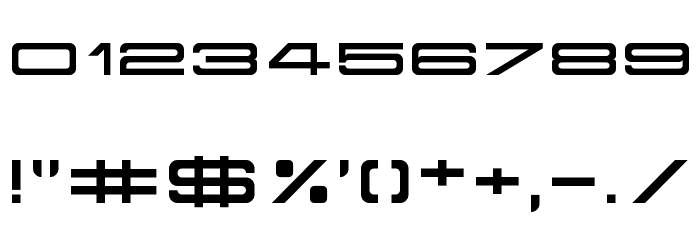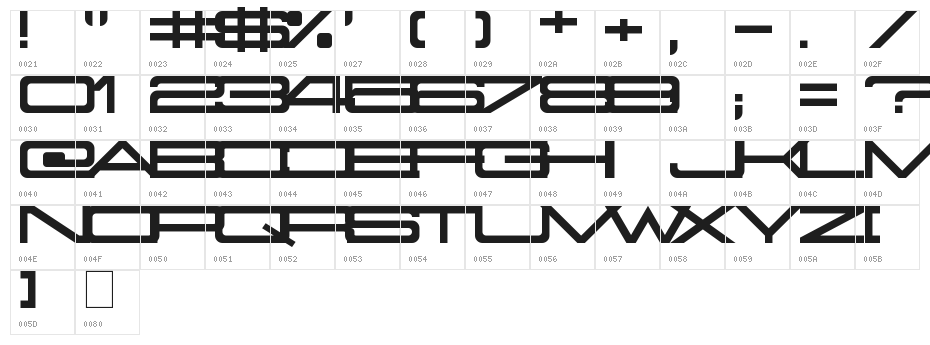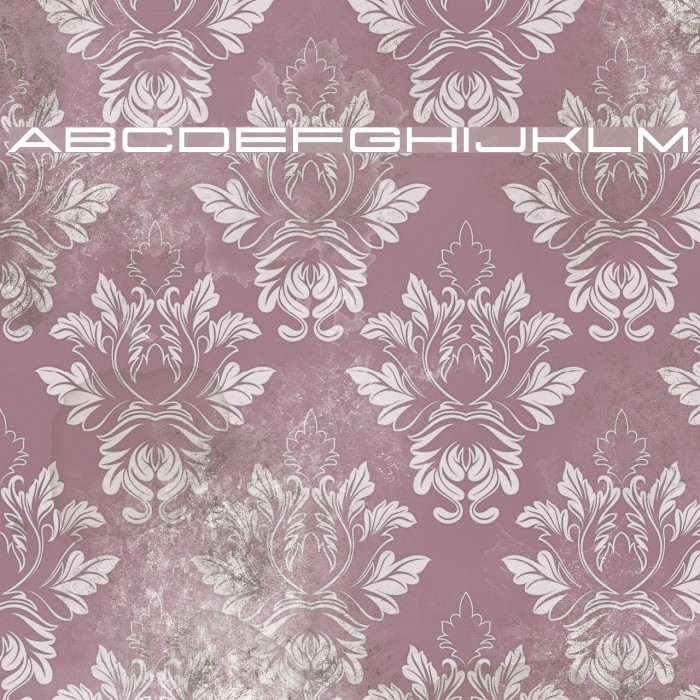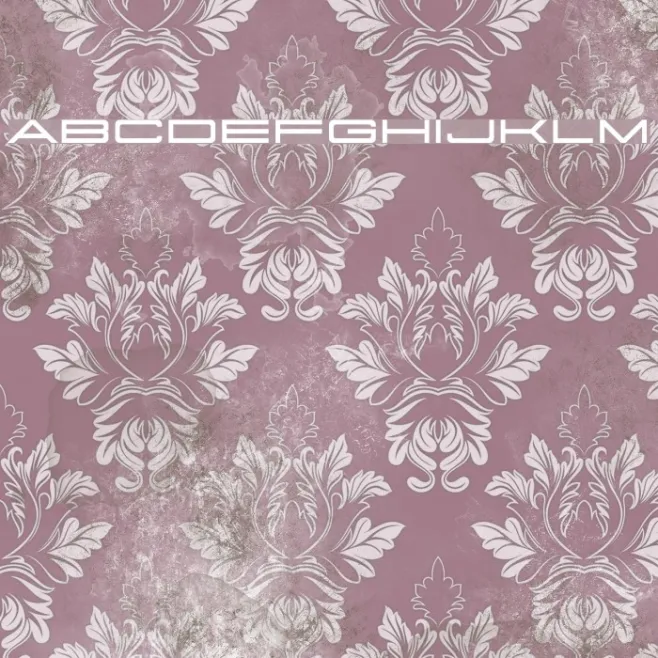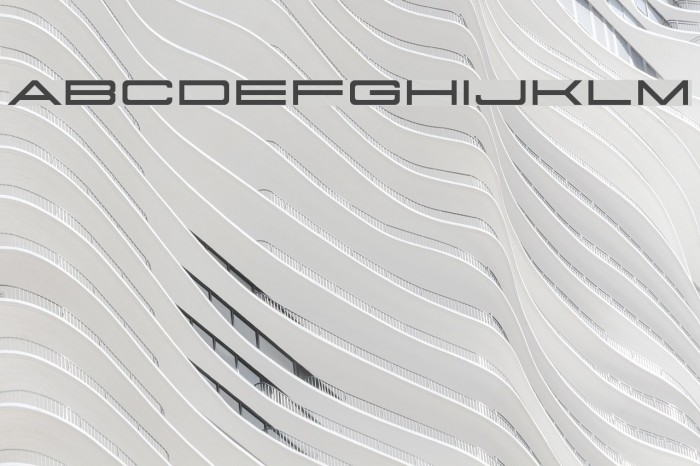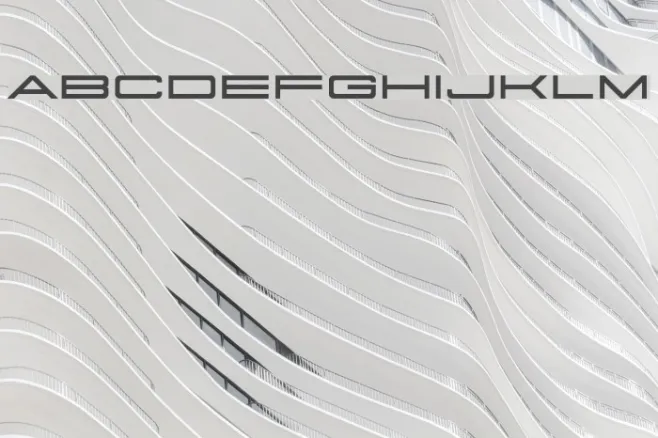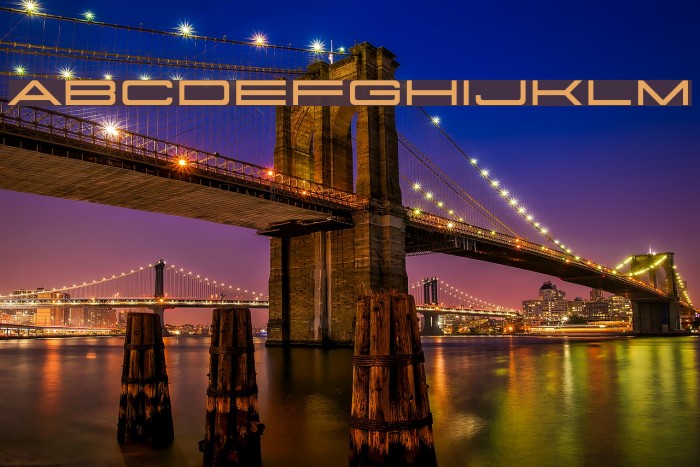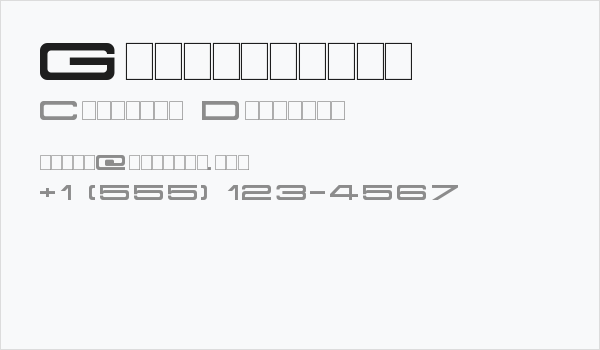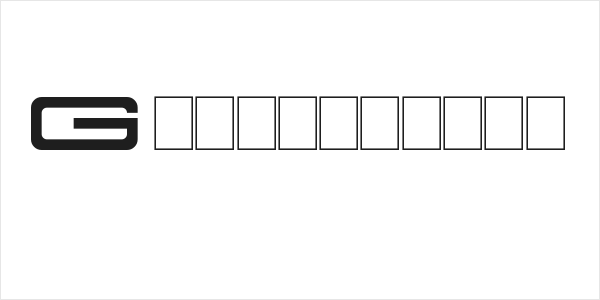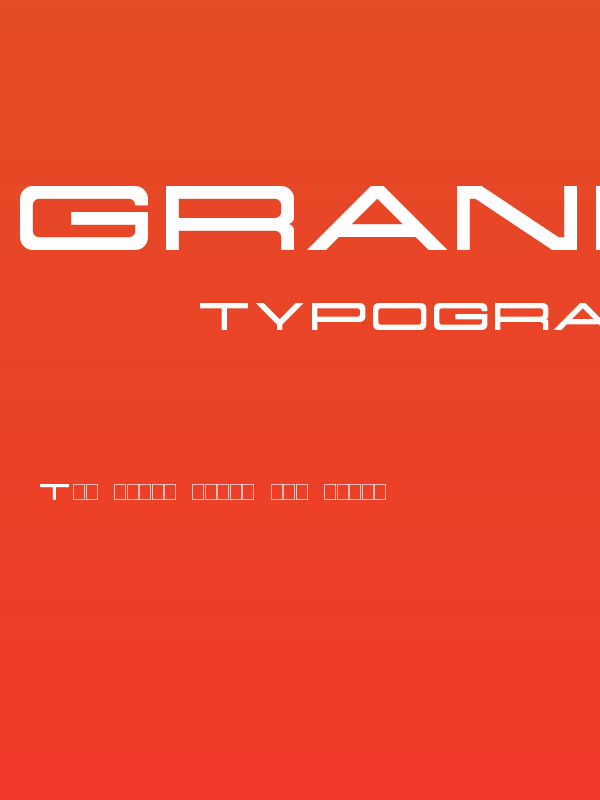
Grandissimo Font
Grandissimo Description
This font features a futuristic and geometric design, characterized by its clean lines and angular shapes. The uppercase letters are bold and structured, with a consistent height and width that gives a uniform appearance. The lowercase letters maintain the same geometric style, ensuring readability while adding a modern touch. Numbers are designed with the same precision, offering a sleek and contemporary look. Special characters are crafted to match the overall aesthetic, making this font suitable for a variety of digital and print applications. Its distinct style makes it ideal for projects that require a modern and tech-savvy appearance.
| Proposed Projects | Ideal for technology branding, sci-fi themed projects, modern advertising, and digital interfaces. |